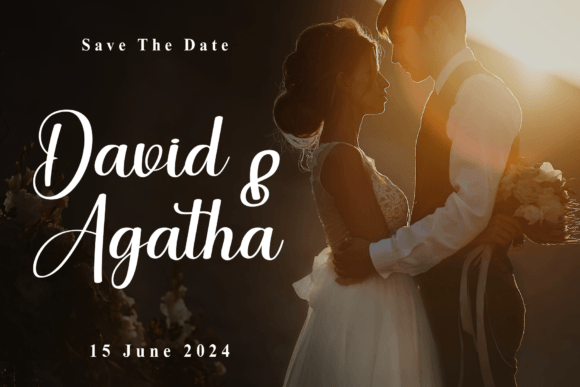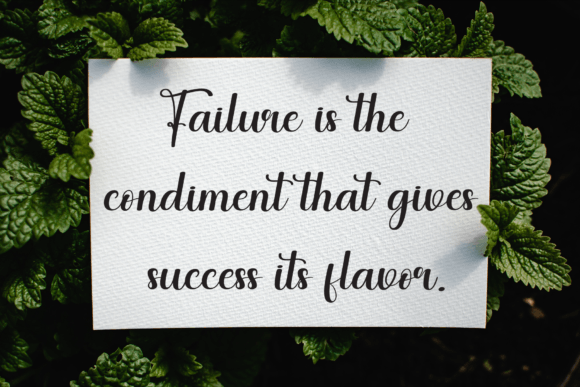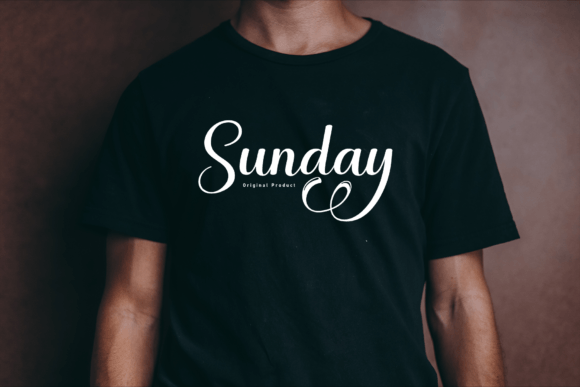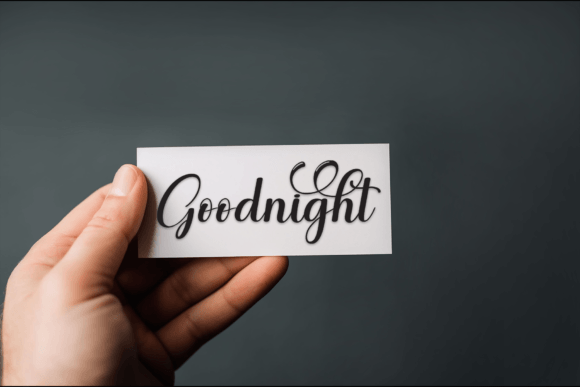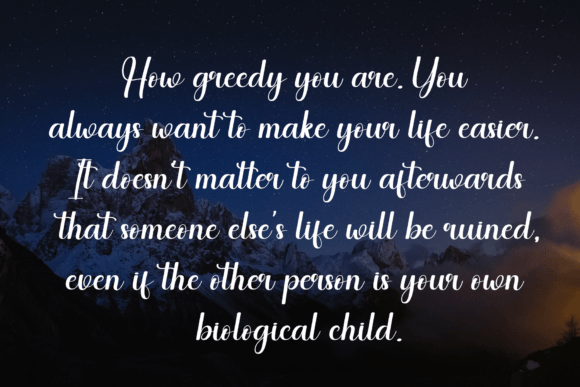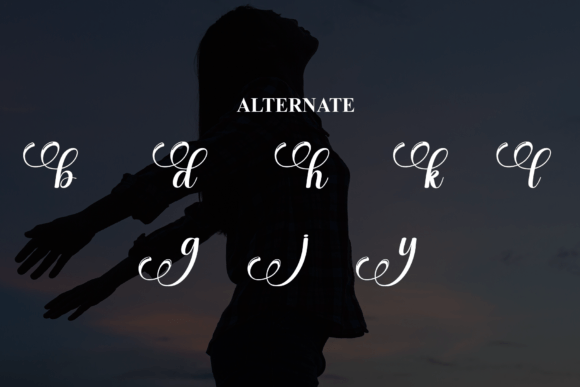
Introducing Body Font: Elevate Your Designs with Elegance and Sophistication
In the world of typography, few fonts manage to convey the perfect blend of elegance, sophistication, and personal touch. Body Font is one such gem that has been making waves in the design community for its stylish and incredibly elegant script appearance. Whether you’re working on wedding invitations, thank you cards, quotes, greeting cards, logos, business cards, or any other design that calls for a handwritten touch, Body Font is the perfect choice to elevate your creations.
The Characteristics of Body Font
Body Font boasts a unique set of characteristics that set it apart from other script fonts. Its fluid strokes and carefully crafted letterforms exude a sense of luxury and refinement, making it an ideal choice for designs that require a high level of sophistication. The font’s elegant appearance is perfect for adding a touch of personality to your designs, while its readability ensures that your message is conveyed clearly and effectively.
Wedding invitations, save-the-date cards, and other event-related designs are where Body Font truly shines. Its romantic and whimsical feel adds a touch of magic to your designs, setting the tone for a memorable and special occasion. Whether you’re a designer or a crafty DIY enthusiast, Body Font is the perfect choice for creating beautiful and eye-catching wedding stationery that will leave a lasting impression on your guests.
Ideal for Quotes, Greeting Cards, and Logos
Body Font’s versatility extends far beyond wedding designs. Its elegant appearance makes it an excellent choice for quotes, greeting cards, and logos that require a touch of sophistication. Use it to add a personal touch to your social media graphics, or to create stunning business cards that will help you stand out in a crowded industry. The font’s unique character and charm are sure to make your designs more engaging and memorable.
Why Designers and Crafters Love Body Font
So, what makes Body Font a favorite among designers and crafters? For starters, its ease of use makes it accessible to designers of all skill levels. The font is easy to read and works beautifully in a variety of design applications, from digital graphics to print materials. Additionally, its unique and elegant appearance ensures that your designs will stand out from the crowd, making it an excellent choice for those looking to add a touch of personality to their work.
Tips for Using Body Font Effectively
To get the most out of Body Font, here are a few tips to keep in mind:
• Use it sparingly: While Body Font is beautiful, it’s best used in moderation. Use it to highlight key information or to add a touch of elegance to your designs.
• Pair it with complementary fonts: Body Font pairs beautifully with a variety of fonts, from serif and sans-serif fonts to other script fonts. Experiment with different combinations to find the perfect pairing for your design.
• Experiment with colors and textures: Body Font looks stunning in a variety of colors and textures. Don’t be afraid to experiment and find the perfect combination to match your brand or design aesthetic.
In conclusion, Body Font is a stylish and incredibly elegant script font that is sure to elevate your designs to the next level. Its unique characteristics, versatility, and ease of use make it an excellent choice for designers and crafters looking to add a touch of sophistication and personality to their work. Whether you’re working on wedding invitations, quotes, greeting cards, logos, or business cards, Body Font is the perfect choice for adding a handwritten touch that will leave a lasting impression.